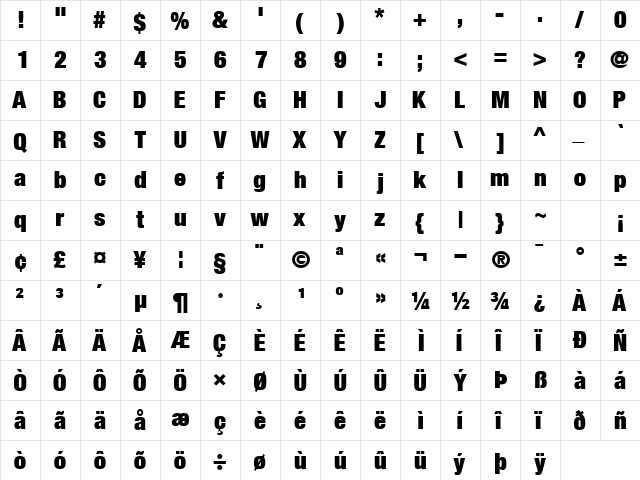
ContextRepriseExtraBlackSSK Regular
Design Context for ContextRepriseExtraBlackSSK Typeface
ContextRepriseExtraBlackSSK takes a measured approach to typography — its balanced proportions and neutral character make it a reliable workhorse for both digital and print work.